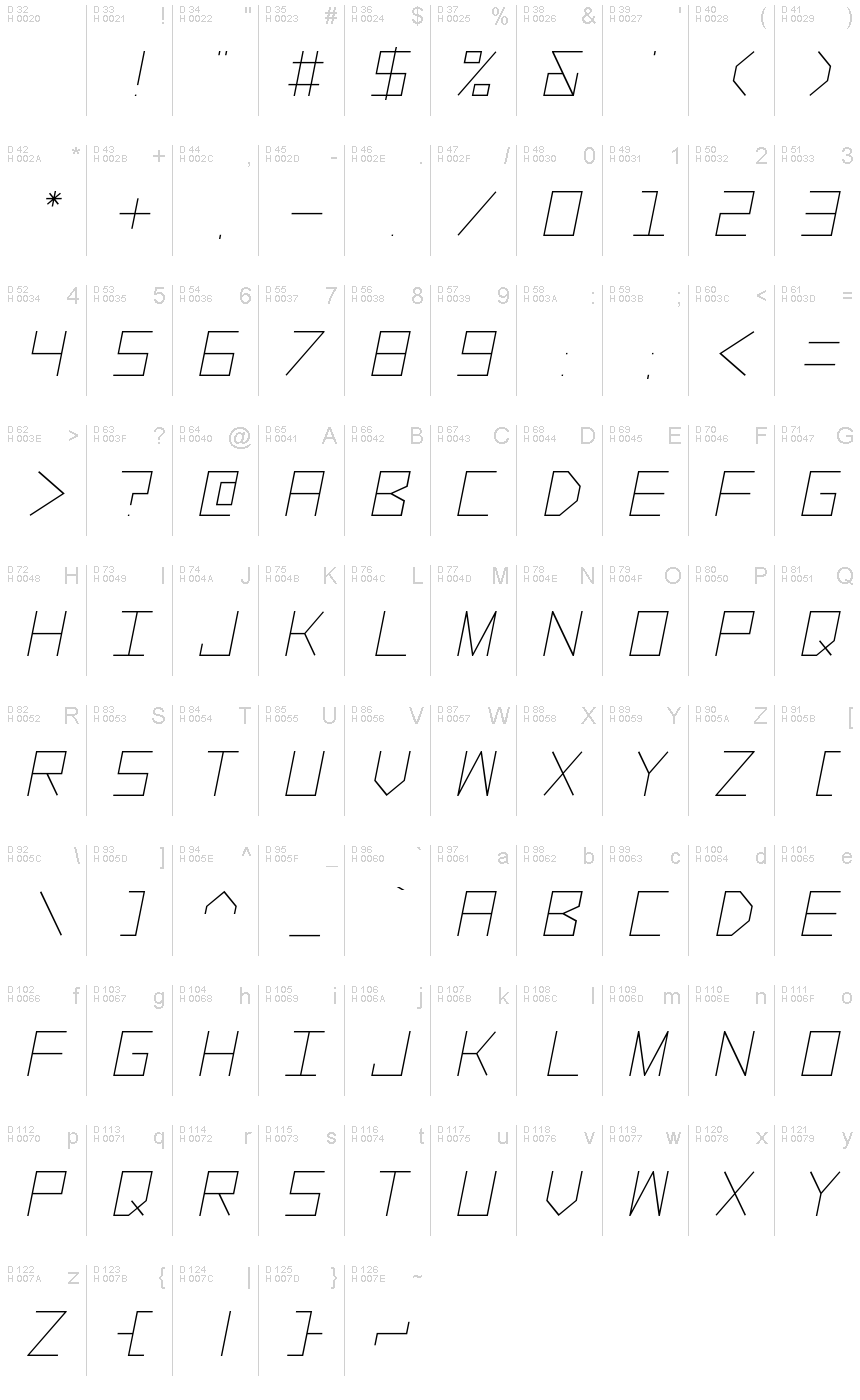
Crafted with a modern, minimalist aesthetic, the Alpha Prota Italic font exudes a captivating techno-inspired vibe. Designed by GGBotNet, this light display typeface boasts clean lines and a bold, angular structure that immediately captures the eye. The font's distinctive letterforms seamlessly blend traditional and futuristic elements, creating a visually striking and versatile typographic solution.
The Alpha Prota Italic's versatility makes it a versatile choice for a wide range of design applications. Its sleek, contemporary appearance lends itself well to branding, packaging, and digital interfaces, where it can help convey a sense of technological sophistication and innovation. Additionally, the font's legibility and adaptability make it a compelling option for editorial and informational design projects, where its clarity and impact can help enhance the reading experience.